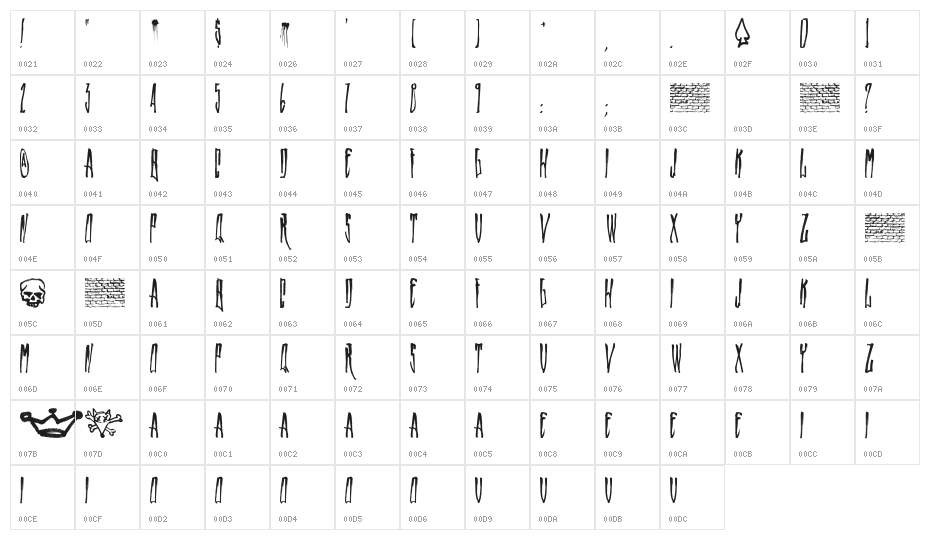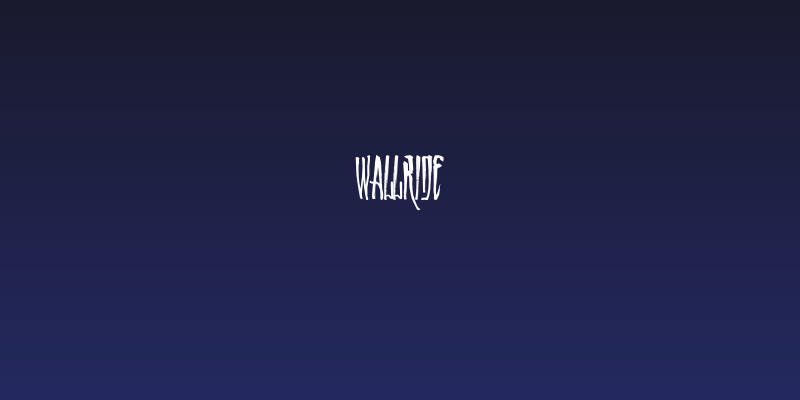
WALLRIDE Font
WALLRIDE Description
This font features a bold, graffiti-inspired style with elongated, dripping strokes that give it a dynamic and edgy appearance. The uppercase letters are tall and narrow, with sharp angles and a sense of movement, reminiscent of street art or urban murals. The lowercase letters maintain the same aesthetic, ensuring consistency across text. Numbers and special characters are designed with the same dripping effect, adding to the overall rebellious and artistic vibe. This font is perfect for projects that require a bold statement or an urban, contemporary feel.
| Width | Condensed |
| Overall Style | Modern, Urban, Edgy |
| Proposed Projects | Ideal for street art designs, music album covers, urban-themed posters, and edgy branding projects. |